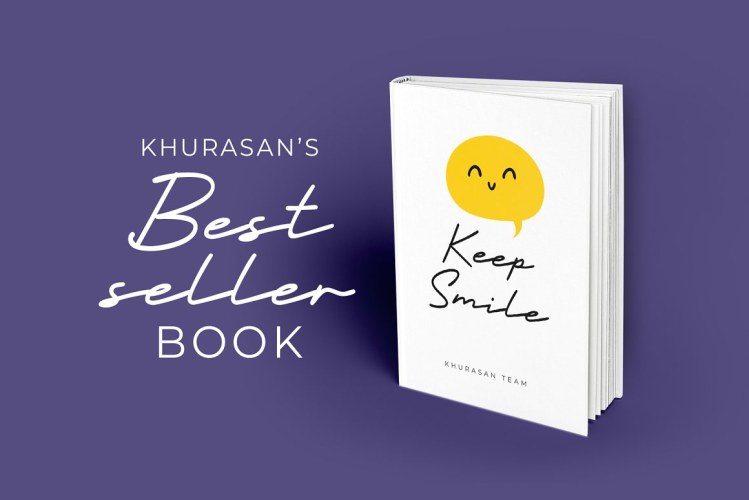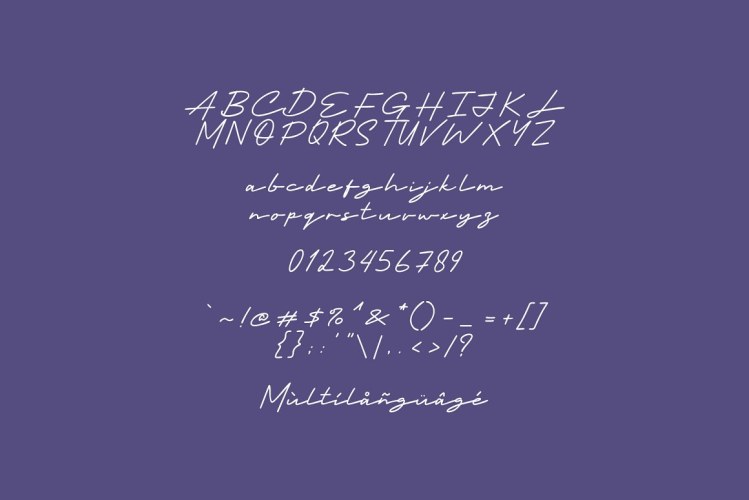
Indosign – Elegant Script Font
Indosign is a modern and elegant script font. Indosign font suitable for logo, branding, greeting card, poster and any design that you create
Where Indosign – Elegant Script Font works best
Indosign – Elegant Script Font brings a personal, handwritten warmth to invitations, menus and place cards.
Craft brands — coffee, cosmetics, bakery — use scripts like Indosign – Elegant Script Font for signature-style logos and labels.
Pair Indosign – Elegant Script Font with a plain sans for quotes, stories and Pinterest pins that feel handmade.
What is Indosign – Elegant Script Font good for?
Indosign – Elegant Script Font is a Script And Handwritten typeface tagged Branding, Elegant, Indosign Elegant Script Font, Modern. It works well for headlines, logos, posters, social media graphics and branding projects that need a distinctive script and handwritten look.